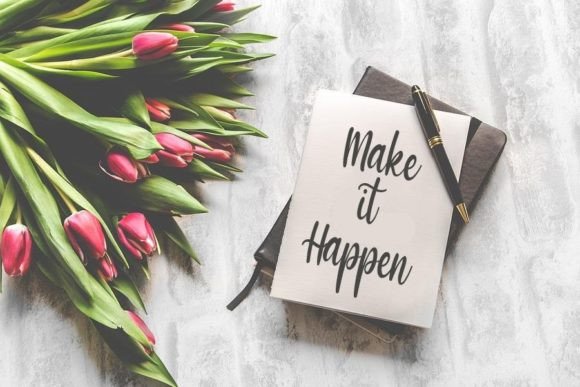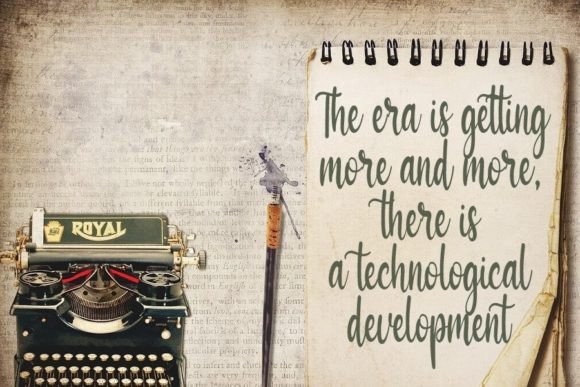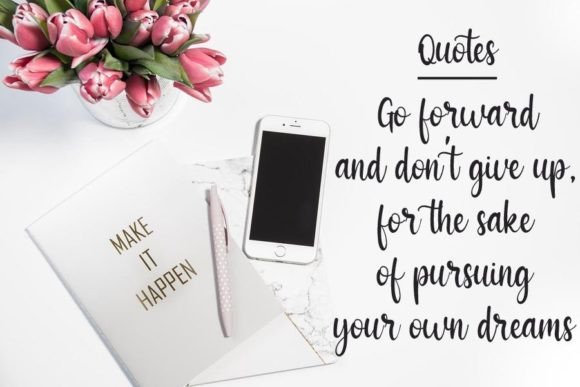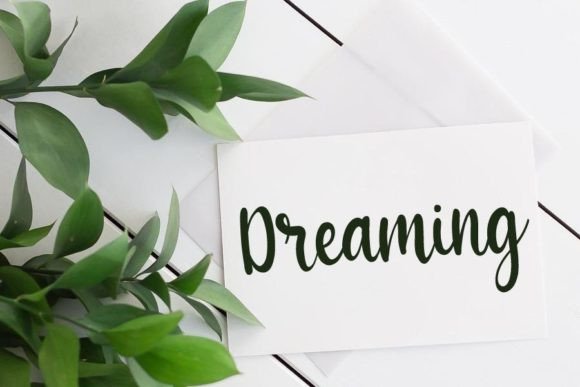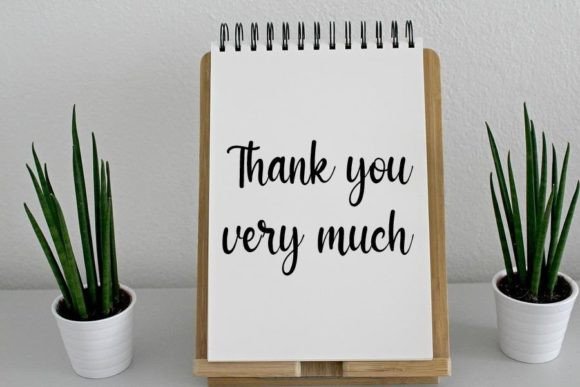
Introducing Garaga Font: Elevate Your Designs with a Fresh and Beautiful Handwritten Style
In the world of design, fonts play a crucial role in conveying messages, expressing emotions, and creating a lasting impression. For designers, crafters, and businesses looking to make a mark, finding the right font can be a game-changer. This is where Garaga Font comes into play – a fresh and beautiful handwritten font designed to take your designs to the next level.
What Makes Garaga Font Special?
Garaga Font is not just another font; it’s a design element that can transform your projects with its simplicity and uniqueness. Here are a few characteristics that make Garaga stand out:
- Handwritten with Love: Garaga boasts a beautiful, handwritten style that adds a personal touch to any design.
- Versatile: Whether you’re working on YouTube banners, covers, logos, mockups, wedding invitations, cards, flyers, or crafts, Garaga fits perfectly.
- Simple yet Unique: Its simplicity makes it easy to read and understand, while its unique style ensures your designs stand out from the crowd.
Garaga Font’s versatility is one of its strongest selling points. Here are some design projects where Garaga can make a significant impact:
YouTube Banners and Covers
Create eye-catching YouTube banners and covers that reflect your channel’s personality with Garaga’s elegant and readable style.
Logos and Branding
For businesses, a logo is more than just a symbol – it’s an identity. Garaga can help you create a memorable logo that speaks to your brand’s values.
Wedding Invitations and Cards
Add a touch of elegance and romance to your wedding invitations, greeting cards, and other stationery with Garaga’s beautiful handwritten style.
Flyers and Crafts
From flyers promoting your business or event to handmade crafts, Garaga’s unique style can enhance your projects and make them more engaging.
How Garaga Font Can Benefit Your Business
Using Garaga Font in your designs can have several benefits for your business:
- Professional Look: Despite its handwritten nature, Garaga gives your designs a professional and polished look.
- Brand Differentiation: Stand out in a crowded market with a unique font that can become synonymous with your brand.
- Emotional Connection: The personal touch of handwritten fonts like Garaga can create an emotional connection with your audience.